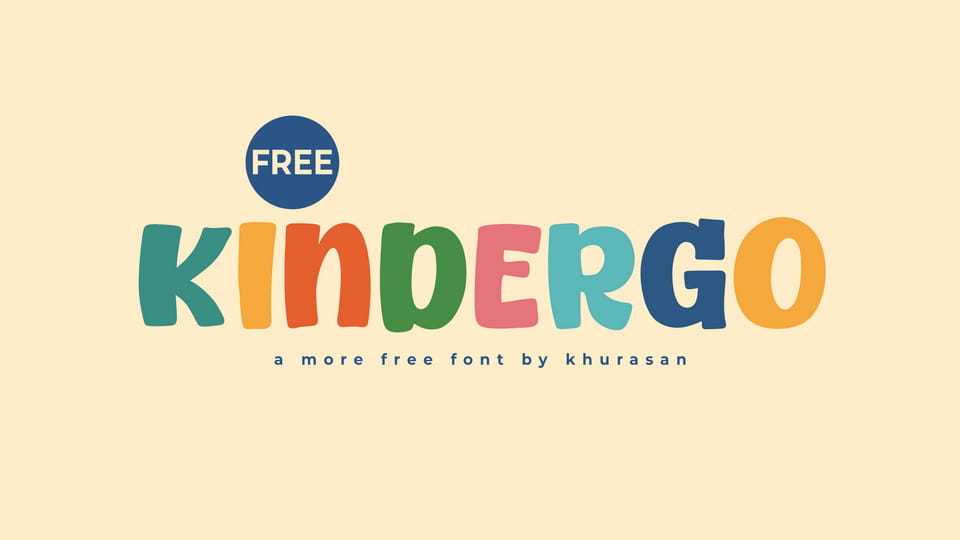
Download Kindergo font, a friendly, colorful display typeface designed to feel warm, simple, and approachable. Its soft, rounded letterforms and slightly irregular rhythm create a childlike, welcoming mood, making it perfect for playful and educational designs.